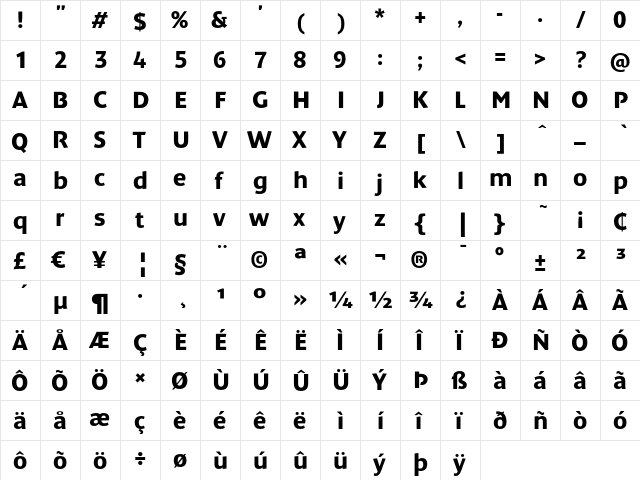
DendaNew Bold Font Preview
DendaNew Bold
DendaNew Bold Font Details
Design Context for DendaNew Typeface
DendaNew is a composed and adaptable typeface that performs quietly and consistently across a wide range of design contexts. Its bold stroke weight gives it real presence on the page.
Pro Tip: Pair DendaNew with a font of contrasting weight or personality to build a more expressive typographic hierarchy.